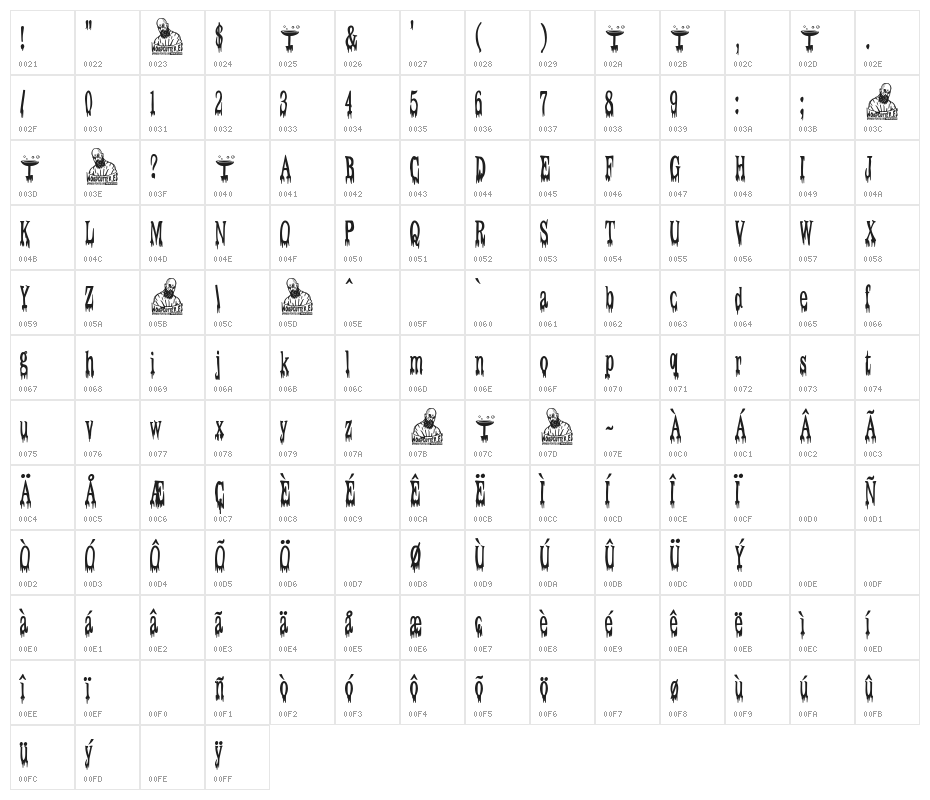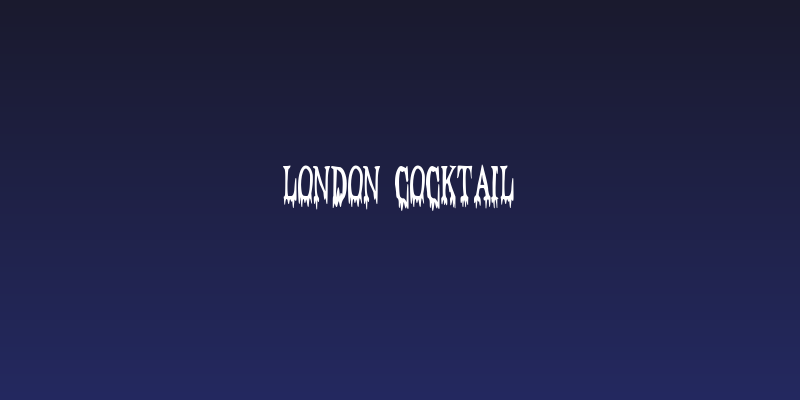
London Cocktail Font
London Cocktail Description
A decorative display font with elongated, dripping letterforms that evoke a spooky or eerie atmosphere. The characters have irregular, jagged edges at the bottom, resembling melting or dripping liquid.
| Overall Style | Decorative, Spooky, Horror |
| Use Case | Headlines, Posters, Event Titles, Logos |
| Proposed Projects | Halloween posters, haunted house flyers, horror movie titles, themed party invitations, spooky event branding. |